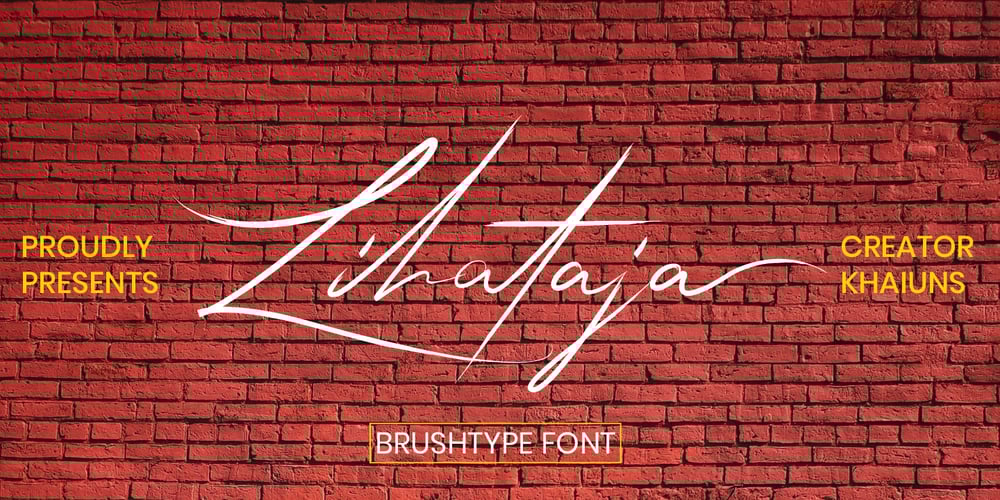
Lihataja
Lihataja font
Lihataja Font Family was designed by Khair Unnas and published by Khaiuns. Lihataja contains 1 styles and family package options. Lihataja Handbrush is designed to show a strong charm. With quick, dry strokes and a signature style, Lihataja is perfect for branding projects, homeware designs, product packaging – or simply as a stylish text overlay to any background image.Ligatures • Are also available for several lowercase characters (double-letters which flow more naturally). These are only accessible via software with opentype capability or a glyphs panel, e.g. Photoshop/Illustrator.That’s it! I really hope you enjoy it – please do let me know what you think, comments & likes are always hugely welcomed and appreciated. More importantly, please don’t hesitate to drop me a message if you have any issues or queries.Come and say hello over on Instagram! Khaiuns